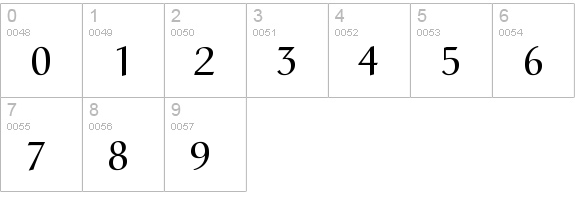
Christiana BQ Regular is the standard, neutral variant in the Christiana typeface family \xE2\x80\x94 well suited to general body text, paragraphs, and standard typographic work.
Christiana BQ Regular font is a timeless and elegant typeface that exudes sophistication and charm. With its classic and graceful letterforms, this font is perfect for adding a touch of refinement to any project. Whether used for invitations, branding, or editorial design, Christiana BQ Regular font delivers a sense of class and elegance. What sets Christiana BQ Regular font apart is not only its beauty but also its versatility. It can be used across various design applications, making it a valuable asset for designers and creatives. The font's clean lines and balanced proportions ensure readability and legibility, making it suitable for both print and digital media. The best part? Christiana BQ Regular font is free to download at FontsMarket.com. This means that you can access this exquisite typeface without any cost, making it an excellent choice for budget-conscious designers looking to elevate their projects. Don't miss out on the opportunity to enhance your designs with the timeless beauty of Christiana BQ Regular font. Download it today and add a touch of sophistication to your creations.